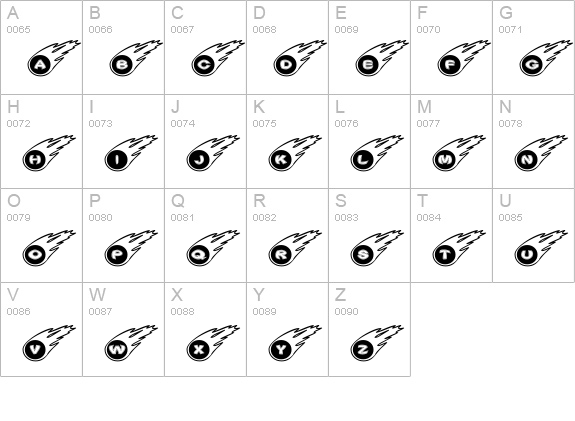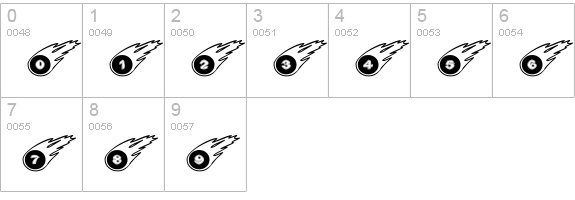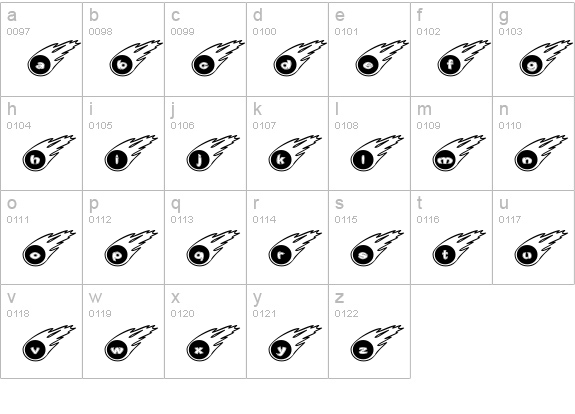
Meteor GM Font Details
Meteor GM is a modern and stylish font that is perfect for a wide range of design projects. With its sleek and futuristic look, this font is sure to make a statement in any design. Whether you're creating a logo, poster, website, or any other type of visual content, Meteor GM has you covered. The best part? Meteor GM is completely free to download at FontsMarket.com. That's right, you can add this amazing font to your collection without spending a dime. So go ahead and elevate your designs with Meteor GM - a versatile and eye-catching font that will take your projects to the next level.